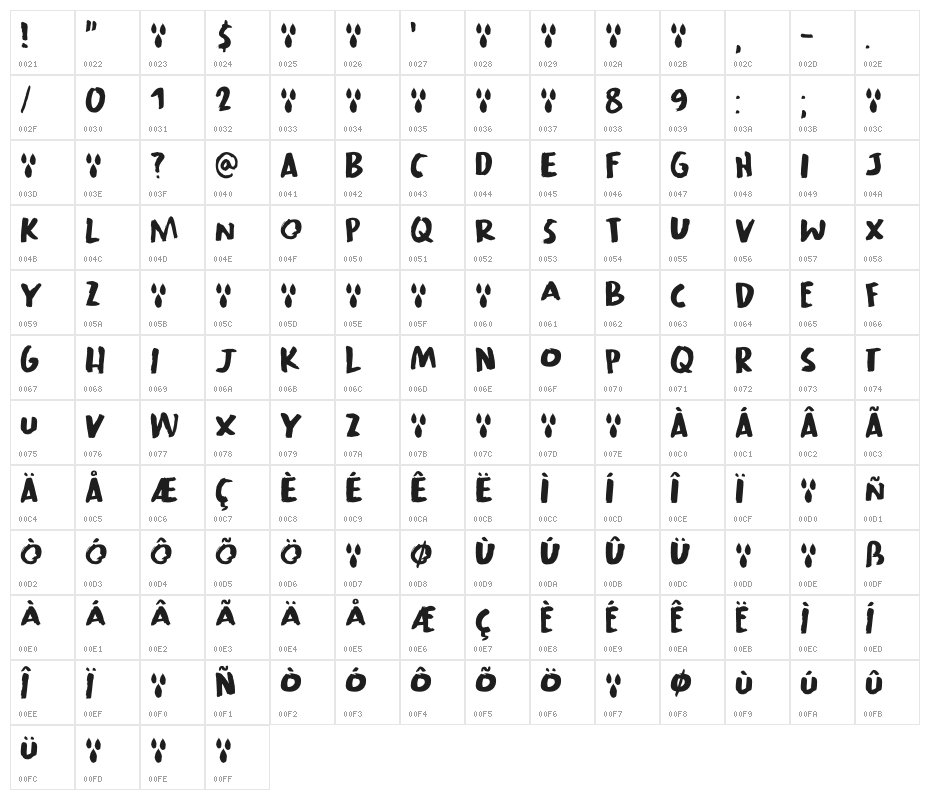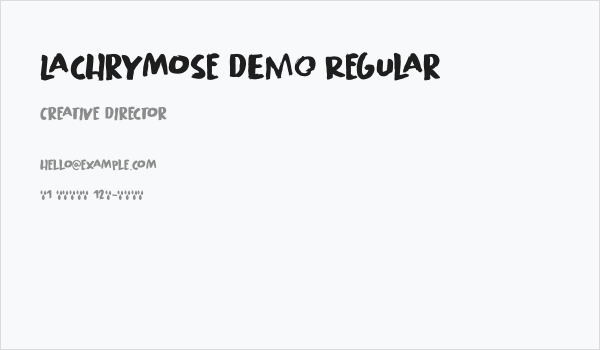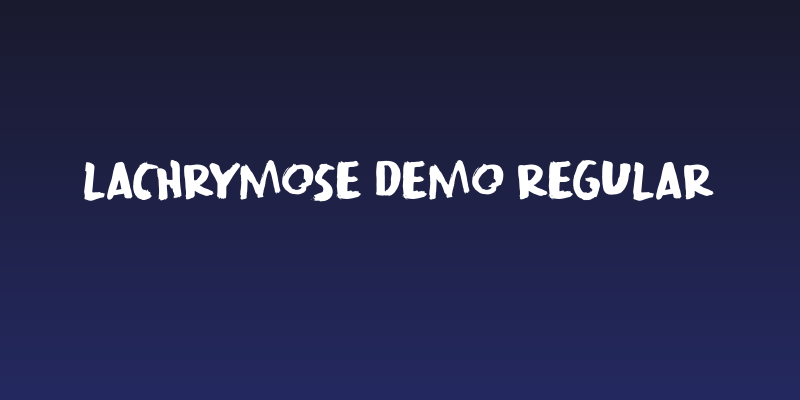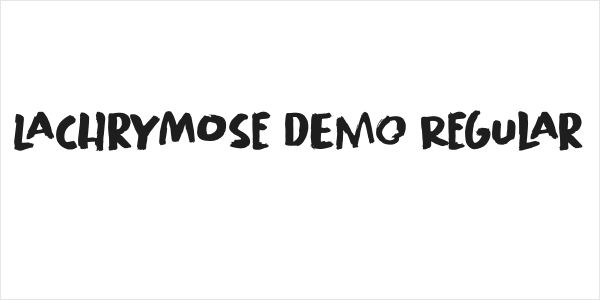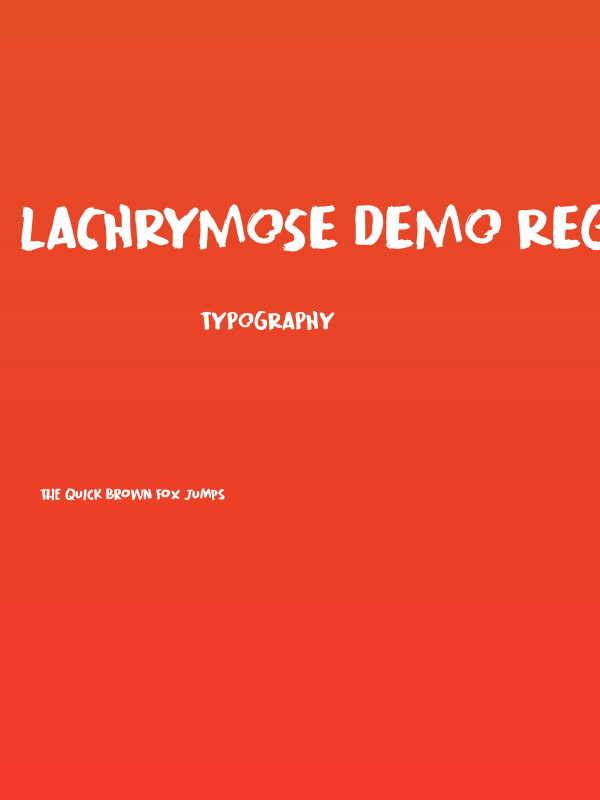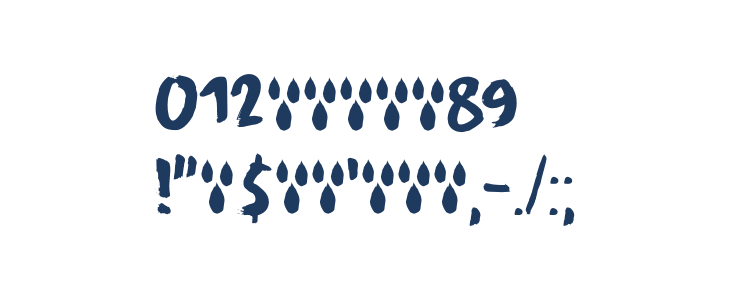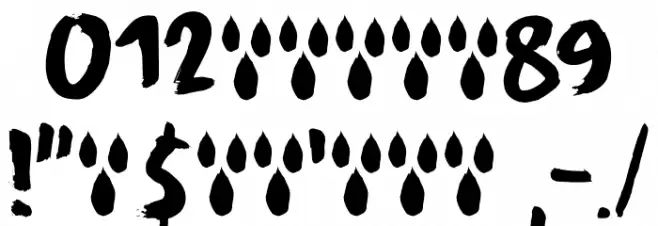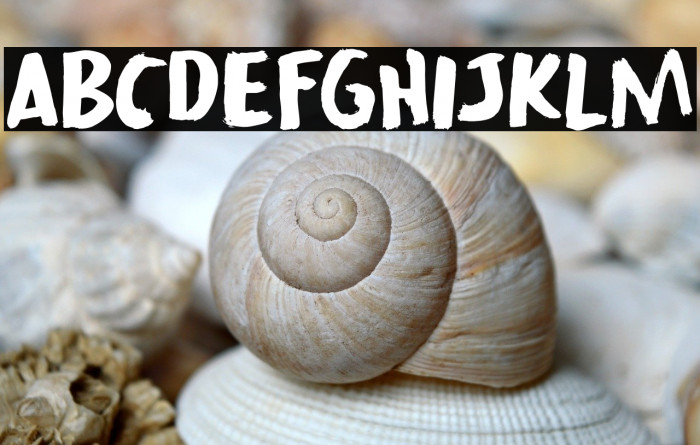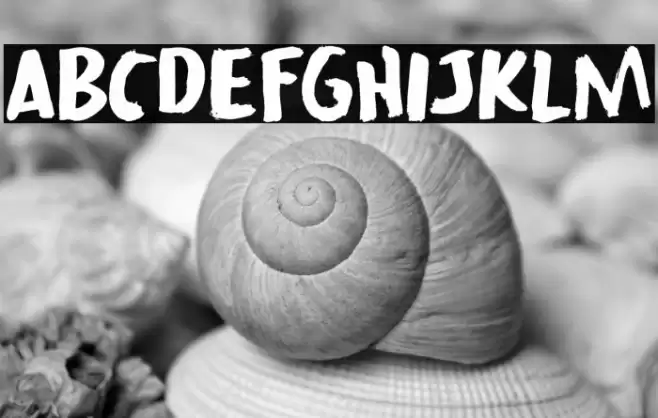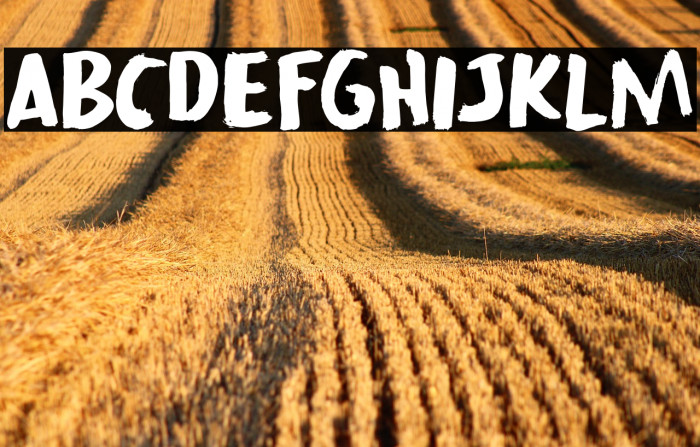
Lachrymose DEMO Regular Font
This font features a bold, expressive style with a hand-painted appearance. The characters are thick and irregular, giving a dynamic and artistic feel. The strokes are uneven, with some letters appearing slightly distorted, adding to the handcrafted aesthetic. The font includes both uppercase and lowercase letters, numbers, and a selection of special characters. The overall look is energetic and eye-catching, making it suitable for creative and informal designs.
| Overall Style | Artistic, Expressive |
| Use Case | Headlines, Posters, Artistic Branding |
| Proposed Projects | Ideal for posters, album covers, artistic branding, and any project requiring a bold, creative touch. |